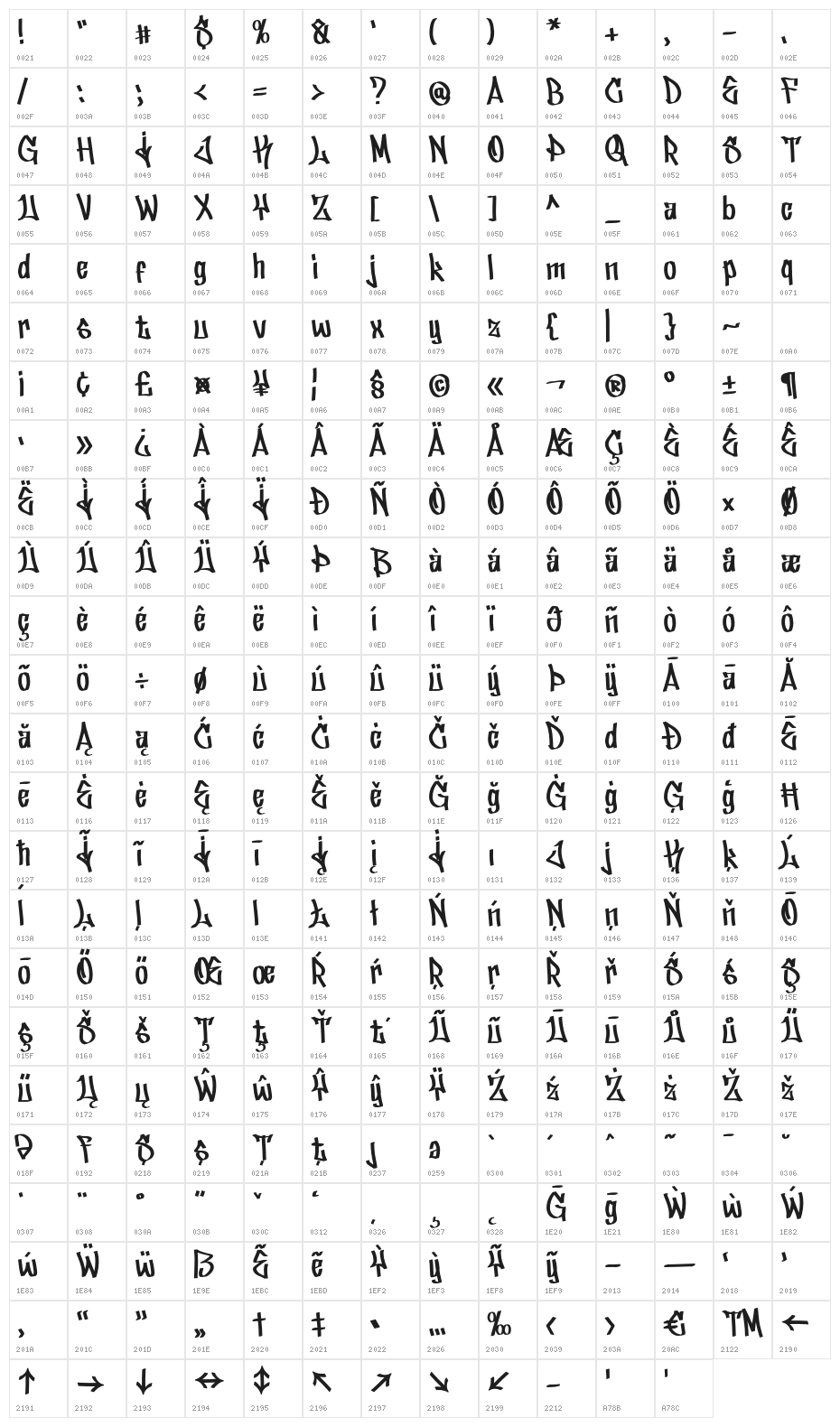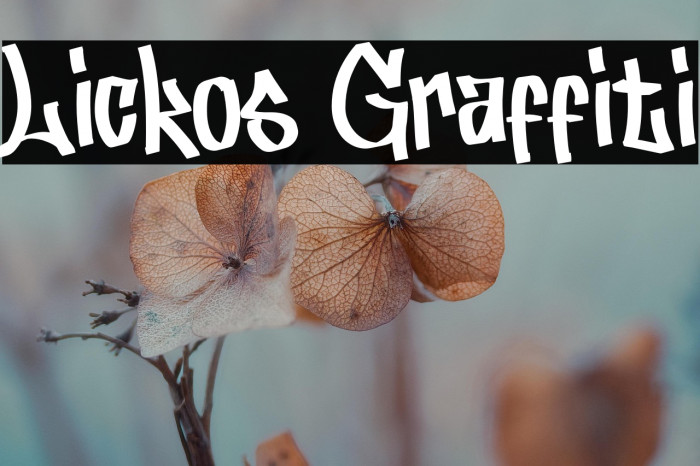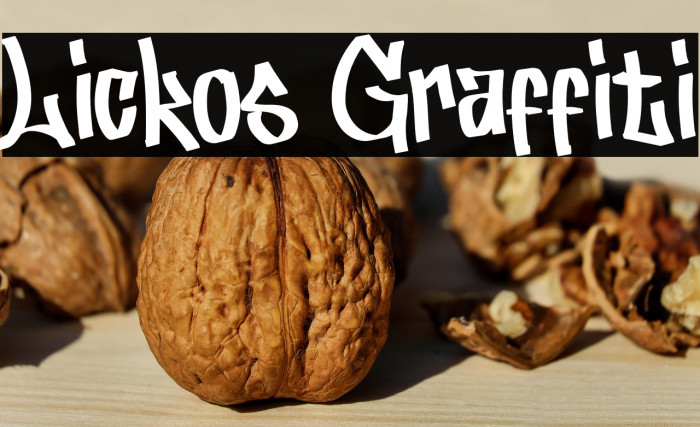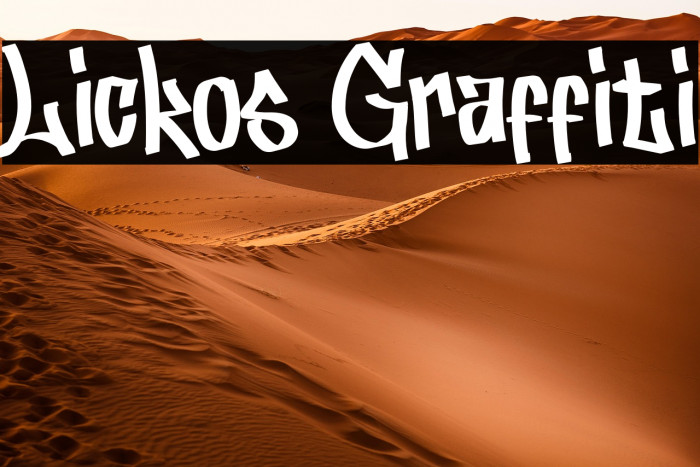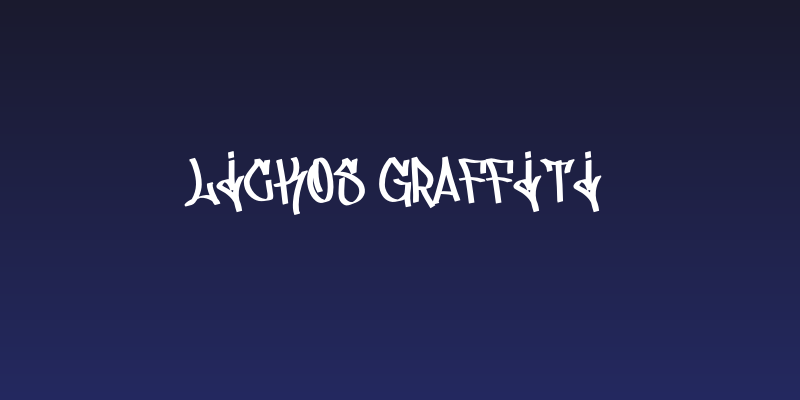
Lickos Graffiti Font
Lickos Graffiti Description
This font exudes a bold and dynamic graffiti style, characterized by its sharp angles and exaggerated curves. The uppercase letters are particularly striking, with a sense of movement and energy that captures the essence of street art. The lowercase letters maintain this dynamic feel, offering a cohesive look across the alphabet. The numbers and special characters are equally expressive, adding to the font's overall impact. The thick strokes and irregular shapes give it a hand-drawn appearance, making it perfect for projects that require a rebellious or urban aesthetic.
| Overall Style | Urban, Rebellious, Energetic |
| Proposed Projects | Ideal for street art-inspired designs, urban-themed posters, edgy branding, and music album covers. |